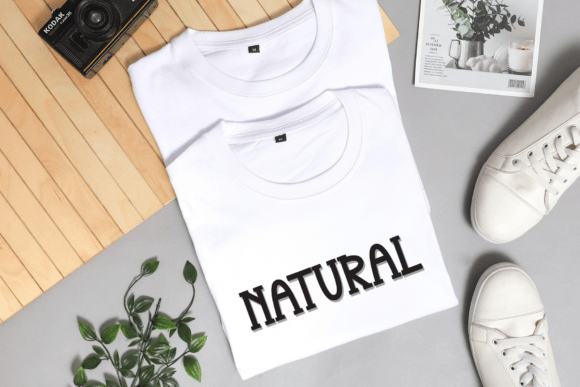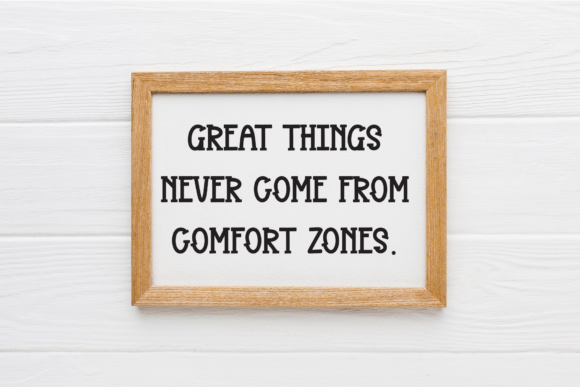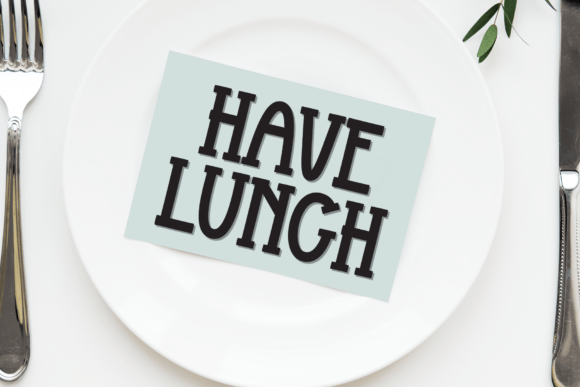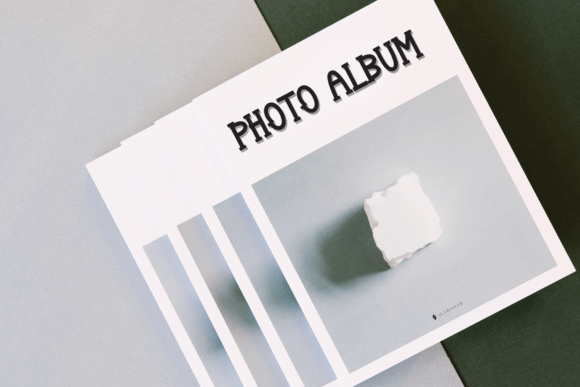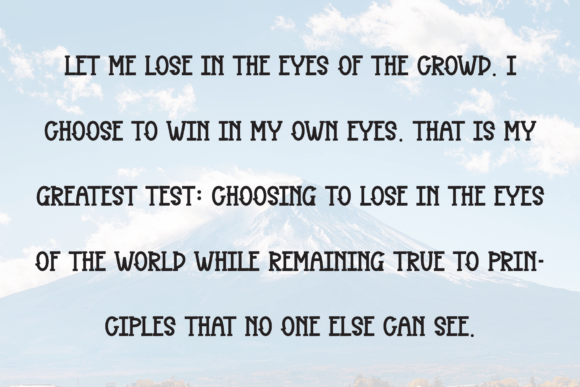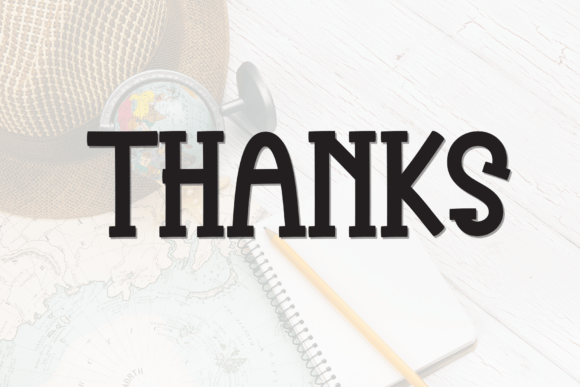
Introducing Geography Font: The Perfect Handwritten Display Font for Your Creative Designs
Are you tired of using the same old fonts for your creative designs? Look no further! We’re excited to introduce Geography Font, a charmingly fresh, handwritten display font that’s perfect for infusing a delightful touch and friendly appeal to your projects. With its whimsical yet elegant style, this charismatic font is sure to lend a fun and sweet charm to any design.
What Makes Geography Font Special?
Geography Font is a unique and versatile font that’s ideal for a variety of design applications. Its handwritten style gives it a personal and approachable feel, making it perfect for wedding invitations, personalized cards, and other creative projects where you want to add a touch of warmth and personality. The font’s whimsical yet elegant style ensures that it will complement any design, from playful and fun to sophisticated and elegant.
Perfect for Wedding Invitations and Personalized Cards
Wedding invitations and personalized cards are special occasions that deserve a font that’s just as special. Geography Font is the perfect choice for these types of projects, as it adds a touch of romance and whimsy to any design. The font’s elegant style ensures that it will complement any wedding theme or color scheme, while its playful nuance adds a fun and modern twist.
Adding a Playful Nuance to Your Designs
Geography Font is ideal for designers and crafters who want to add a playful nuance to their creative projects. The font’s whimsical style ensures that it will add a touch of fun and personality to any design, from children’s party invitations to adult birthday cards. Whether you’re creating a design for a special occasion or just want to add some personality to your everyday projects, Geography Font is the perfect choice.
Key Features of Geography Font
- Handwritten display font: Geography Font is a unique, handwritten display font that’s perfect for adding a personal touch to your designs.
- Whimsical yet elegant style: The font’s whimsical yet elegant style ensures that it will complement any design, from playful and fun to sophisticated and elegant.
- Perfect for wedding invitations and personalized cards: Geography Font is ideal for wedding invitations, personalized cards, and other special occasions.
- Playful nuance: The font’s playful nuance adds a fun and modern twist to any design.
Tips for Using Geography Font
Here are a few tips for using Geography Font in your designs:
- Pair with other fonts: Geography Font pairs well with other fonts, such as serif and sans-serif fonts. Experiment with different font combinations to find the perfect look for your design.
- Use for headings and titles: Geography Font is perfect for headings and titles, as it adds a touch of personality and whimsy to any design.
- Experiment with colors: Geography Font looks great in a variety of colors, from bright and bold to soft and pastel. Experiment with different colors to find the perfect look for your design.
Geography Font is a charmingly fresh, handwritten display font that’s perfect for infusing a delightful touch and friendly appeal to your creative designs. With its whimsical yet elegant style, this charismatic font lends itself perfectly to wedding invitations, personalized cards, and other creative projects. Whether you’re a designer or crafter, Geography Font is the perfect choice for adding a playful nuance to your designs.